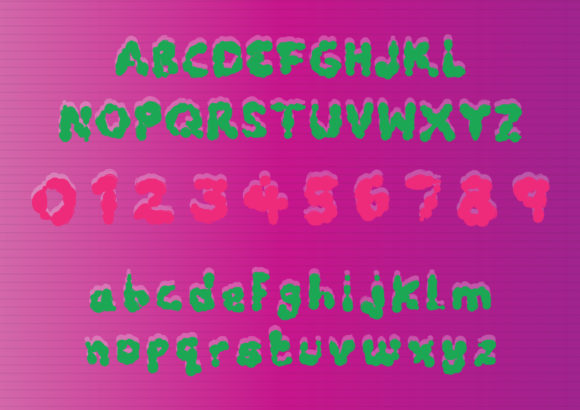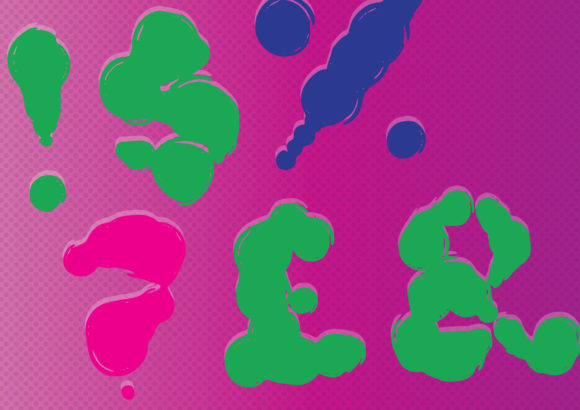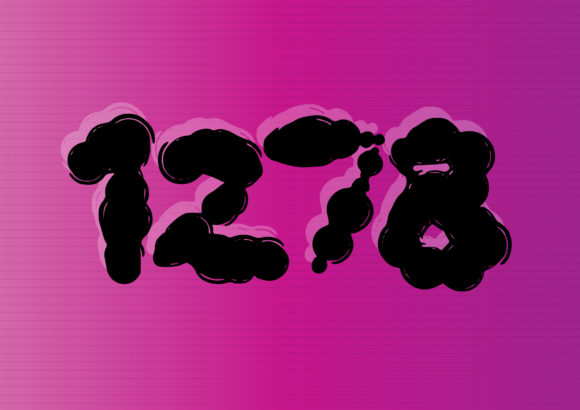
Introduction to Puff Puff Font
Puff Puff is a fluffy and fun display font.
It will add a unique touch to your designs with its cheerful style .
Key Features of Puff Puff Font
Why Choose Puff Puff Font?